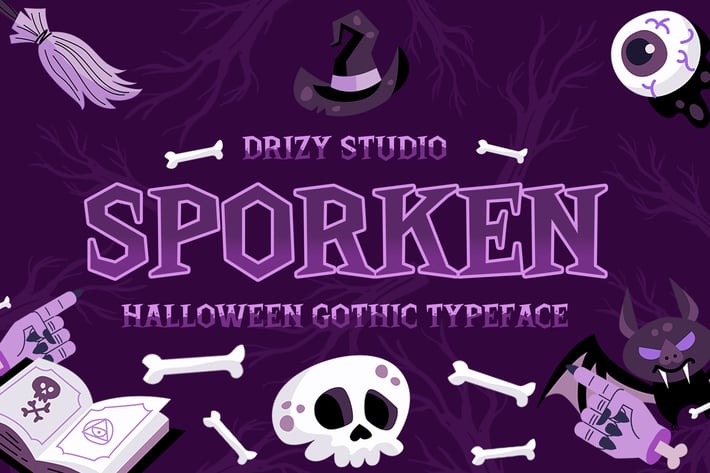
Sporken - Halloween Gothic Font
Introducing Sporken! a halloween gothic font from Drizy! It's suitable for halloween and any other scary theme of your project.